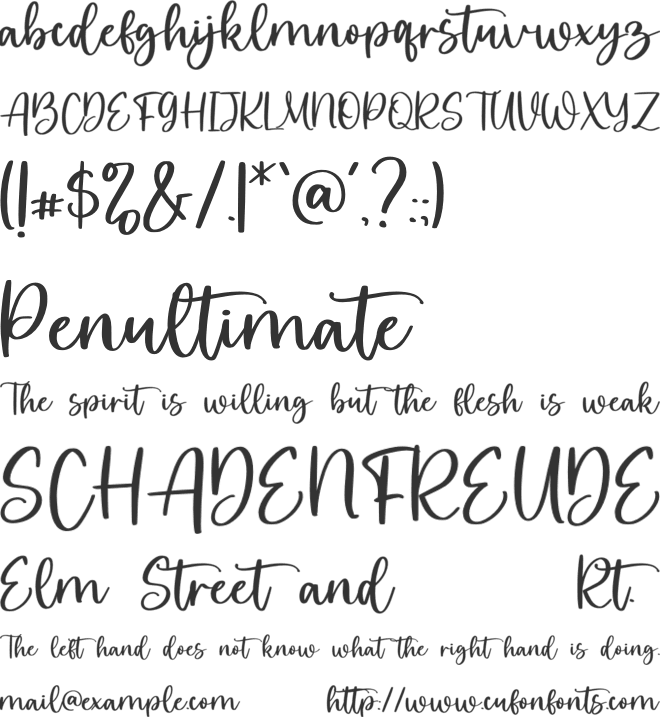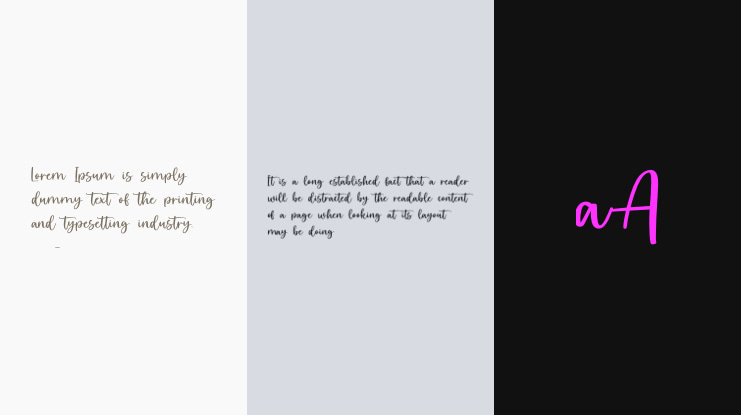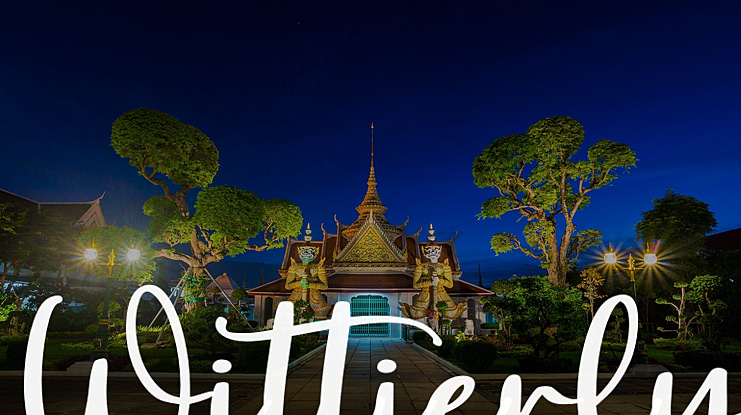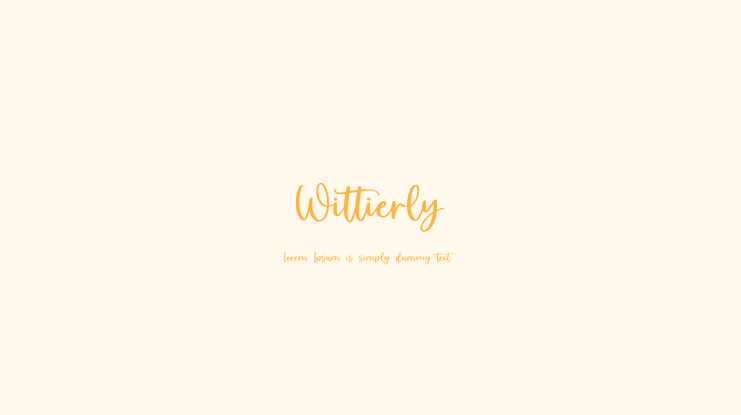
Wittierly Font
Wittierly | Handwritten Script FontWittierly is a handwritten script font. This font is perfect for svg designs, shirts, branding, ornaments, shirts, mugs, headings, blogs, logos, invitations and more!Includes OTF and TTF files.Most accent characters included (Multilingual).Thank you!